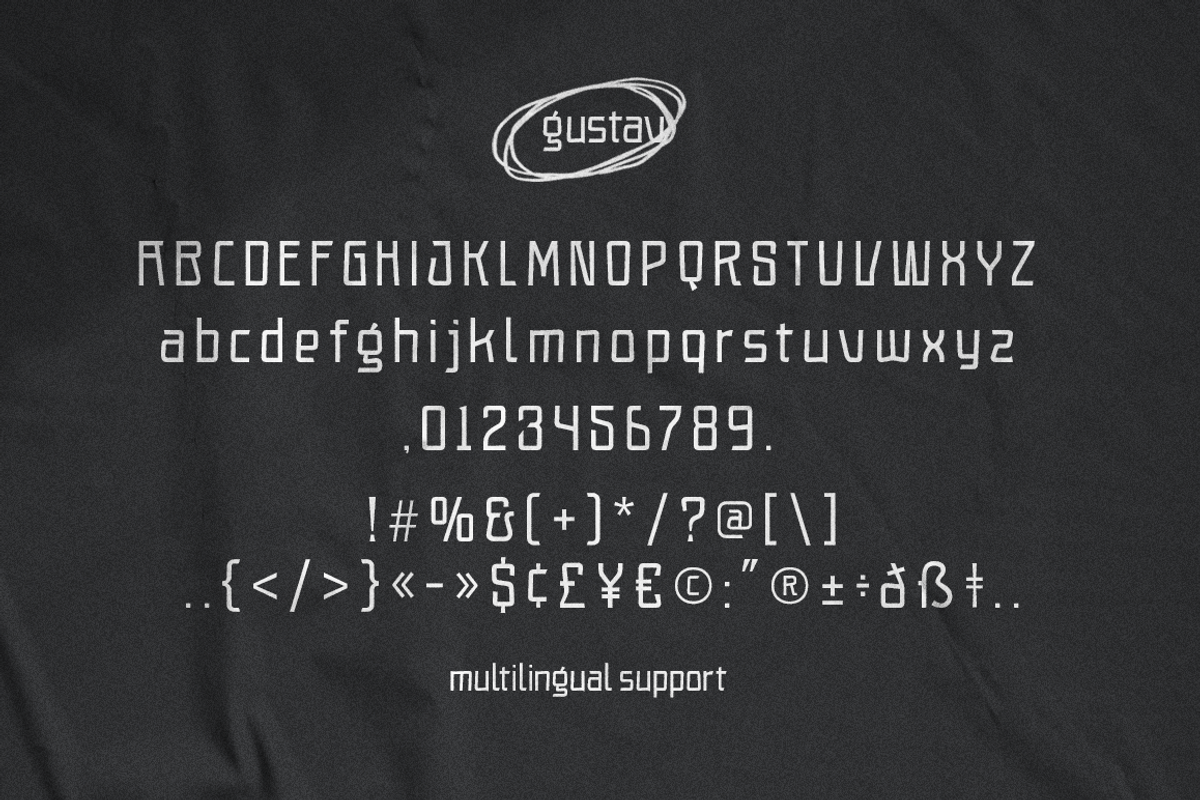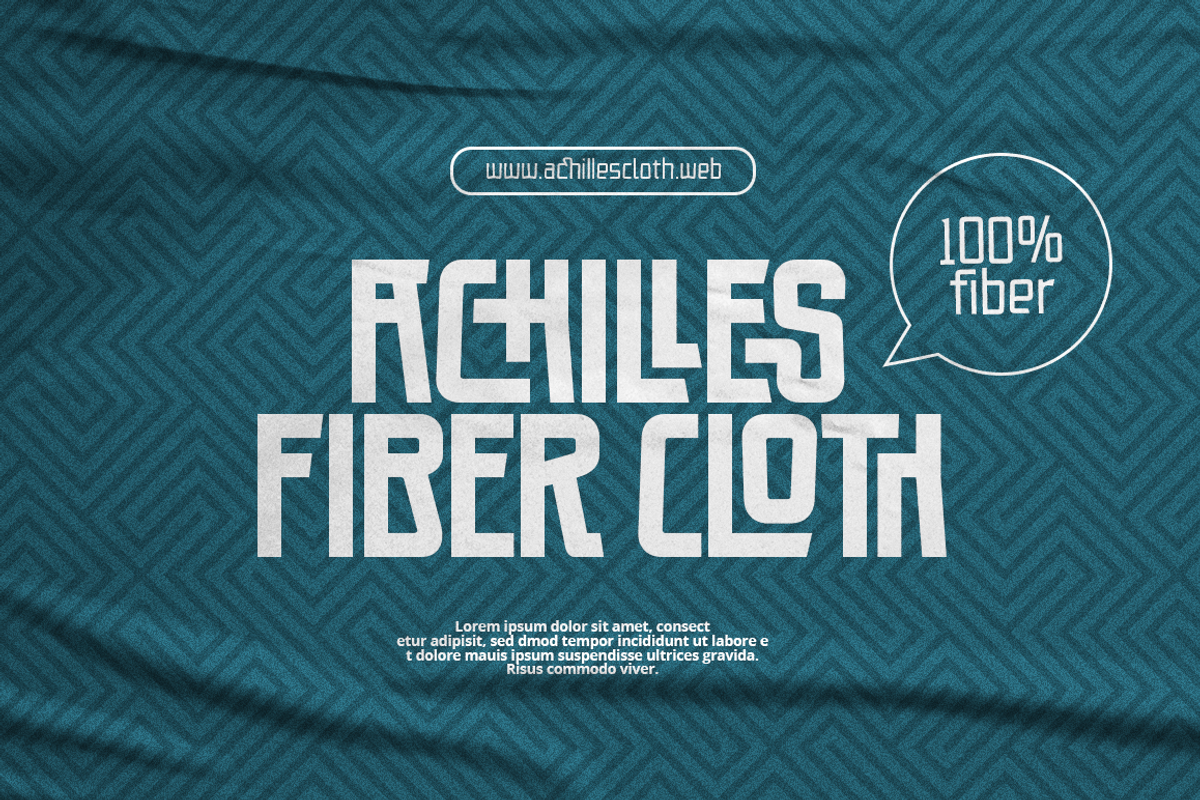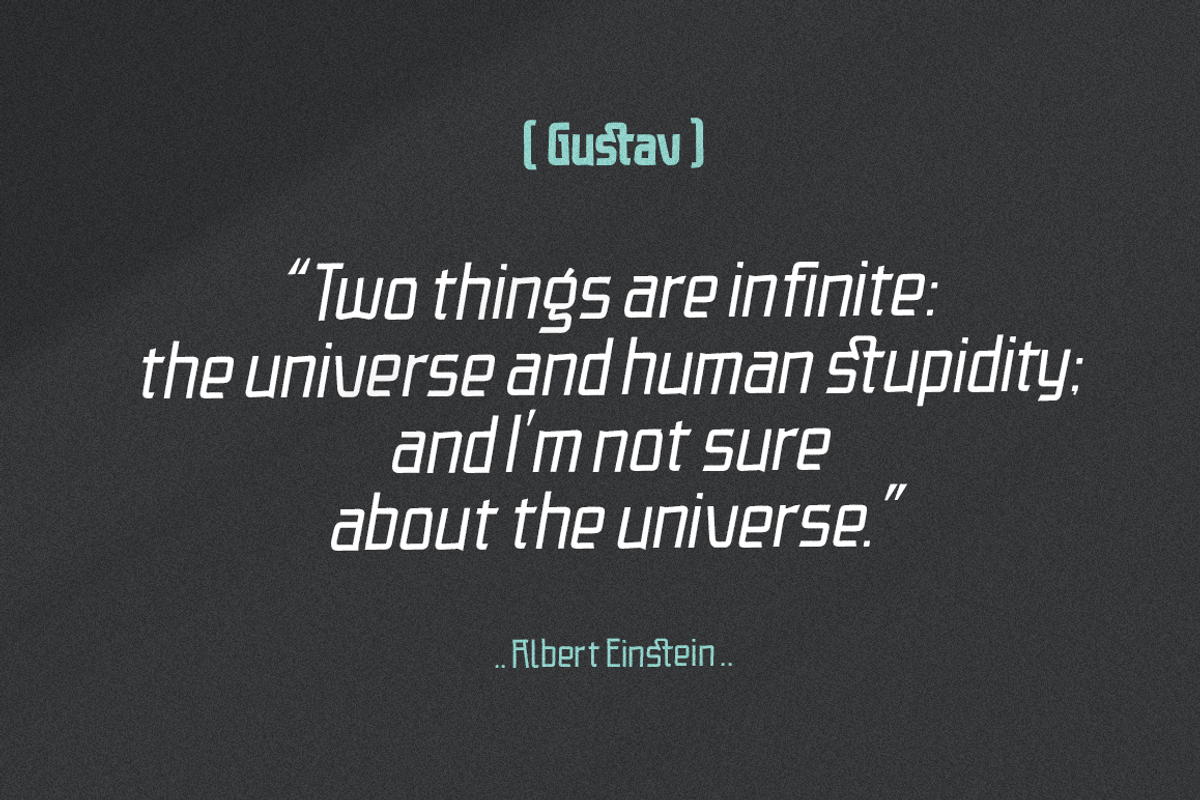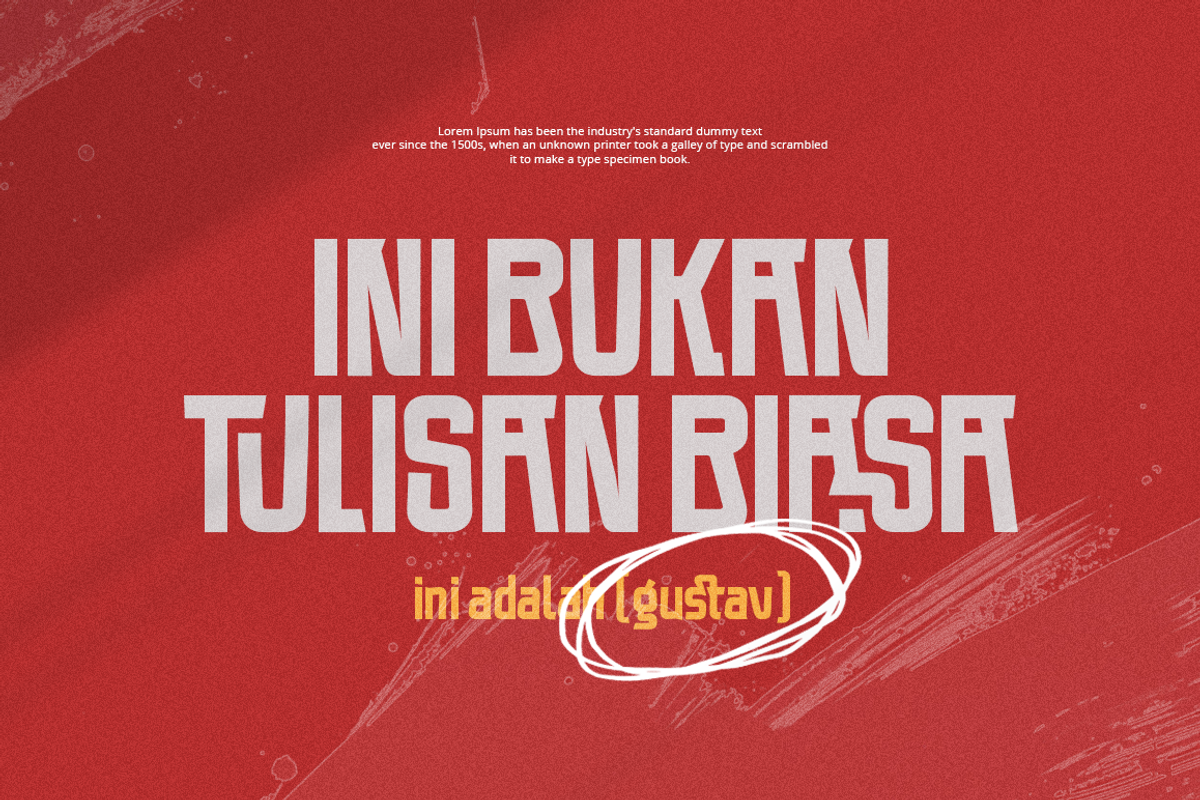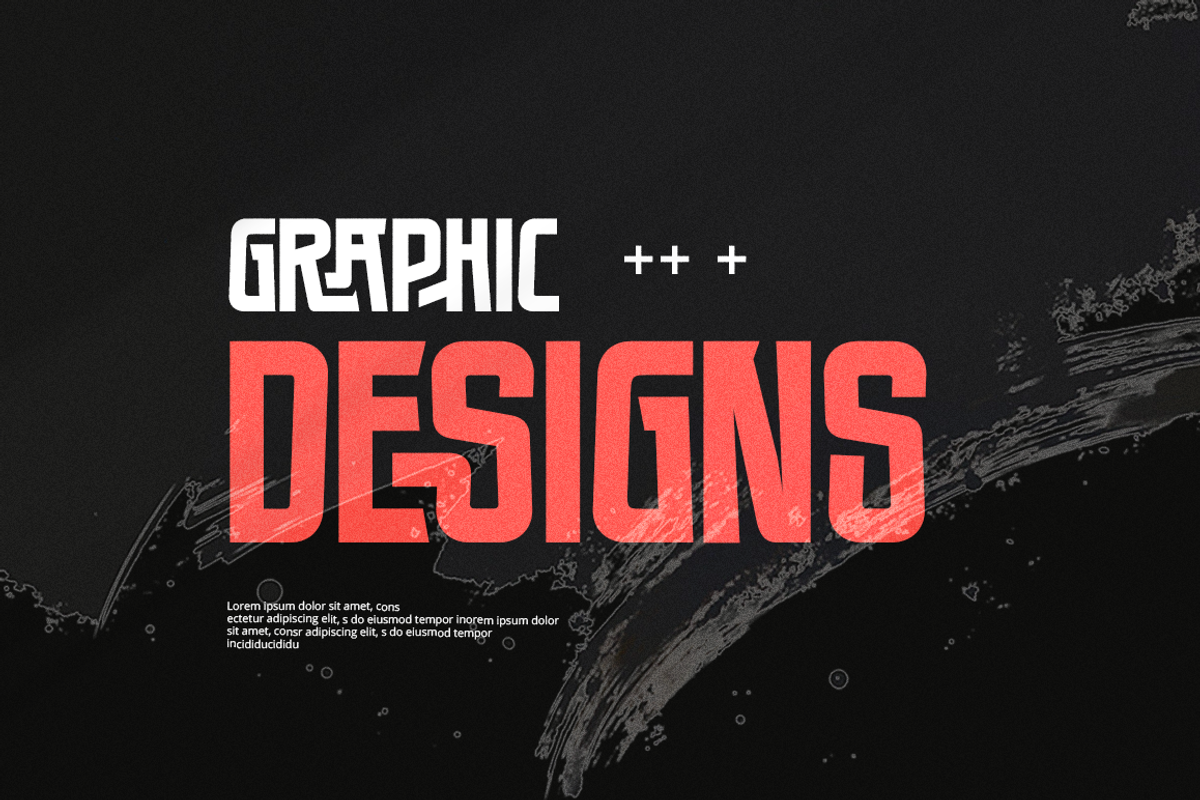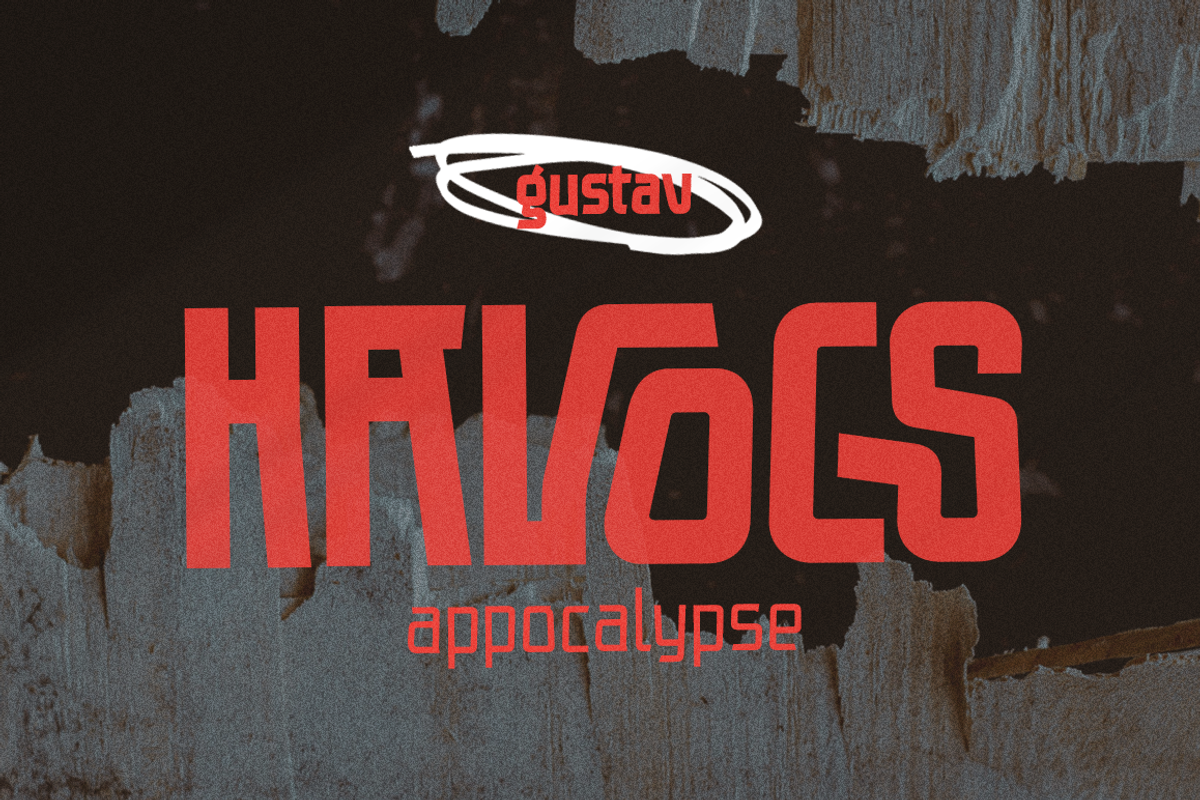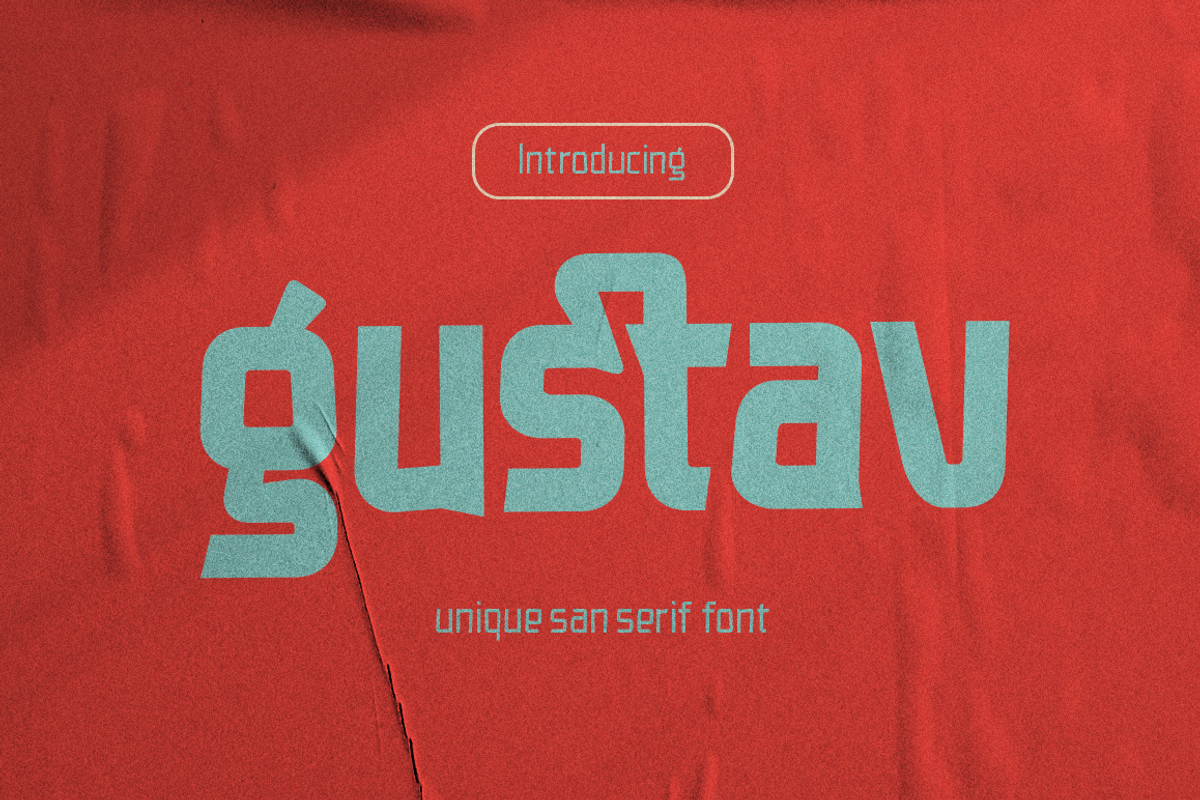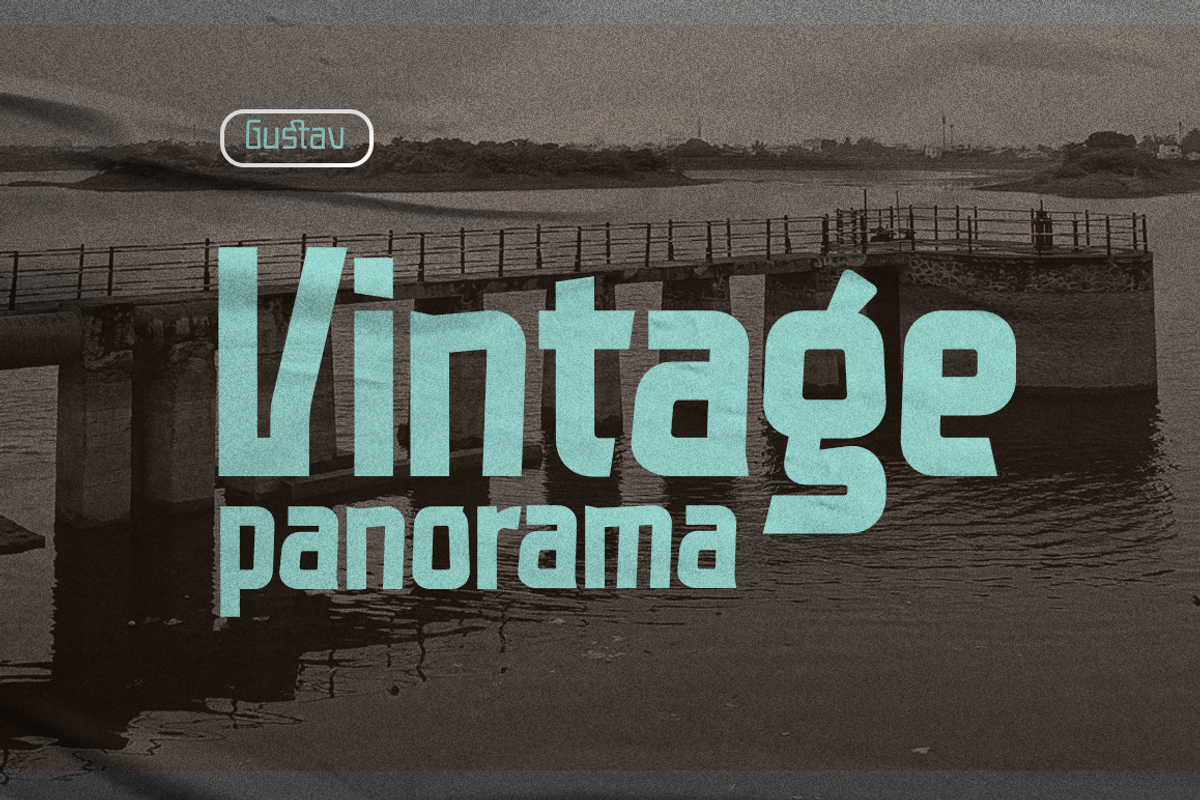
Gustav Font
Gustav is a modern and elegant sans serif font that blends simplicity with sophistication. Its clean lines and contemporary structure make it a versatile choice for both headers and body text. Designed with precision and balance, Gustav offers two main weights — Regular and Light — each complemented with their own Italic styles. This font is perfect for editorial use, branding, websites, and any design project that demands a sleek and refined typographic presence.
- Modern Sans Serif Font
- Regular and Light
- Basic Latin Glyphs
- Currencies